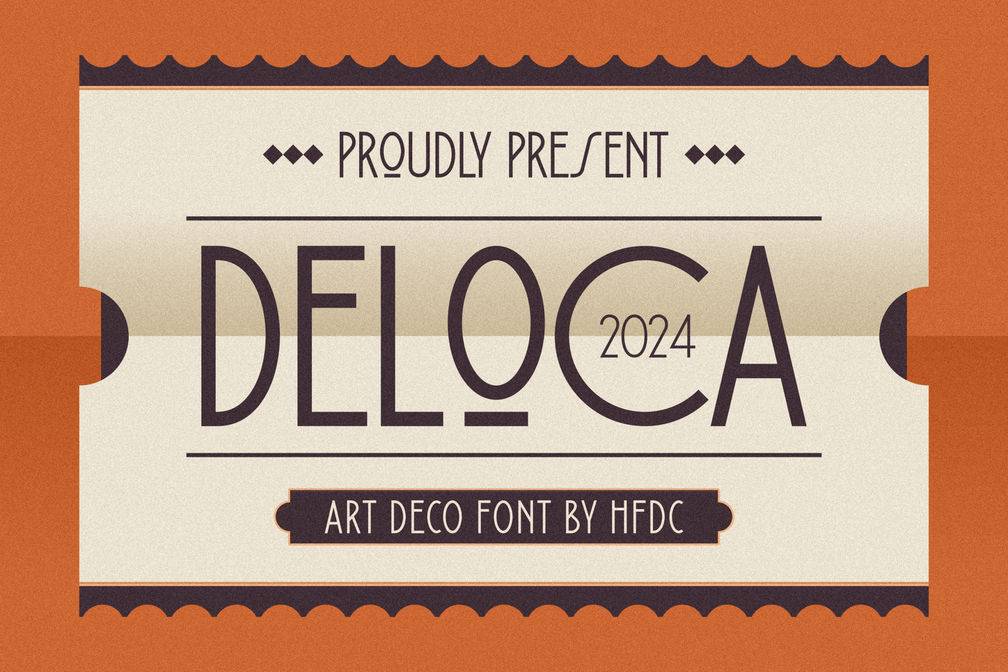
Deloca Artdeco Font
Deloca is a simple and modest art deco font, equipped with opentype features that can support your design so that it has a luxurious and elegant appearance.
• All Caps fonts